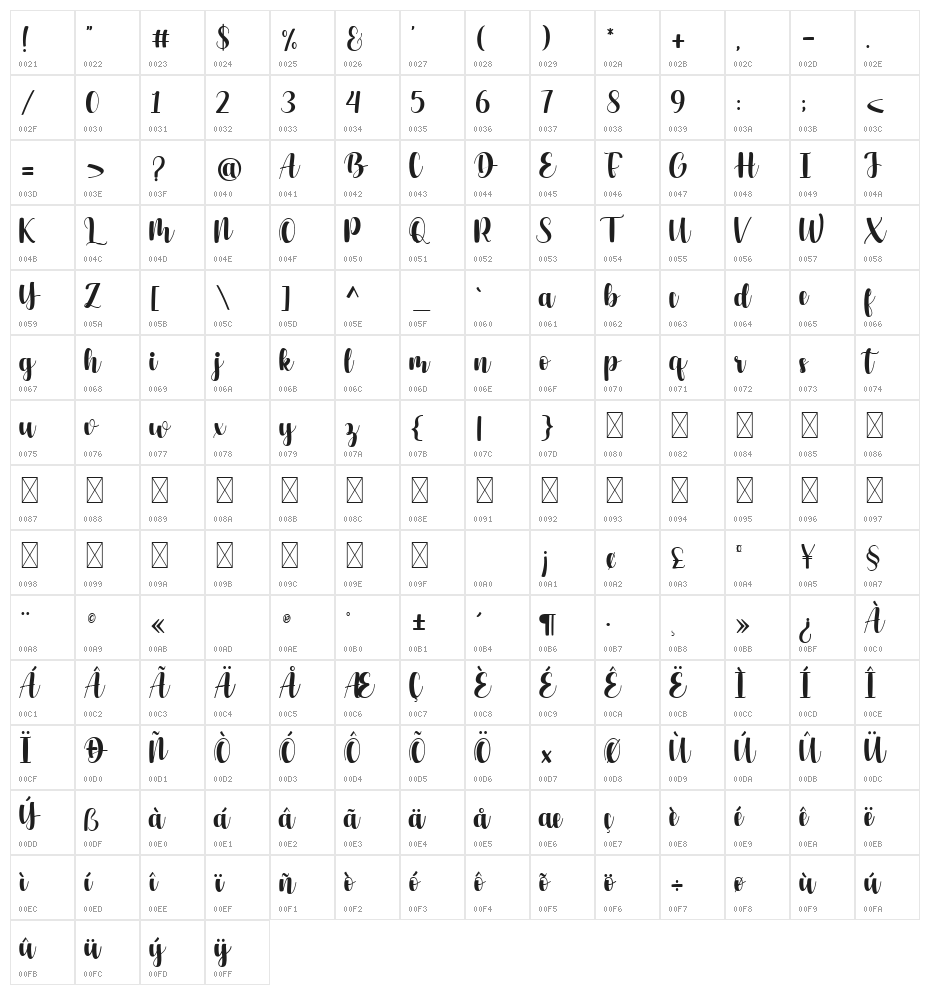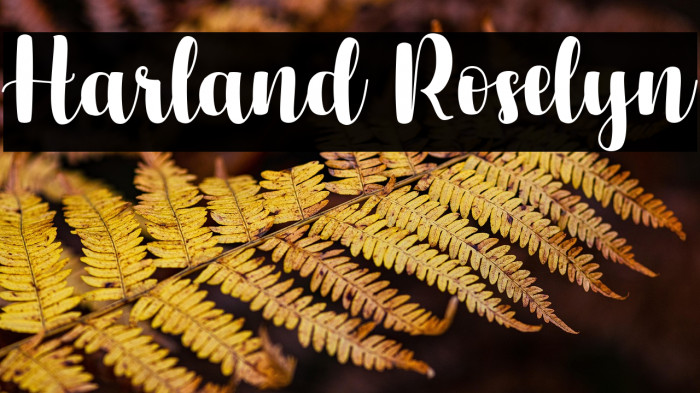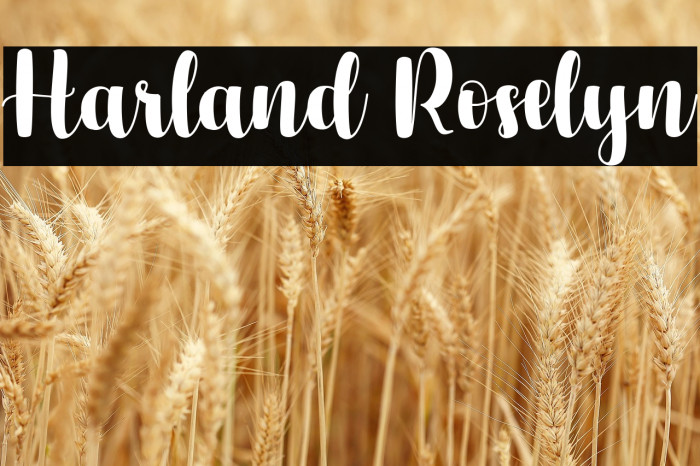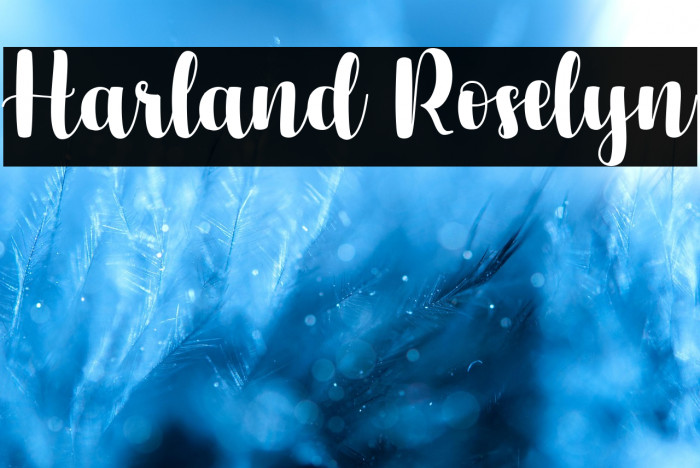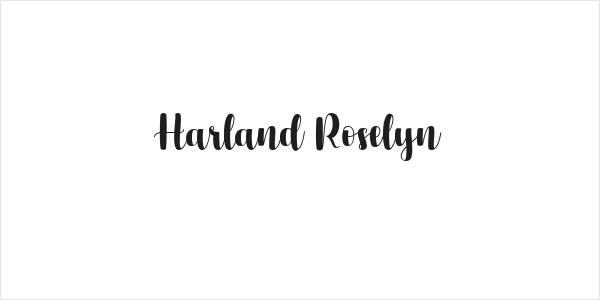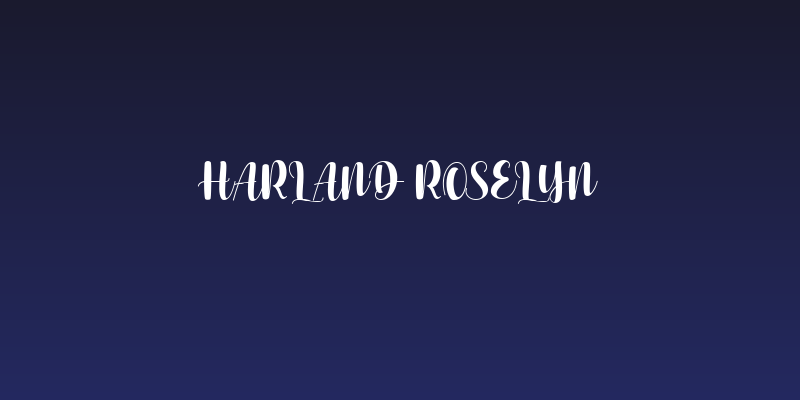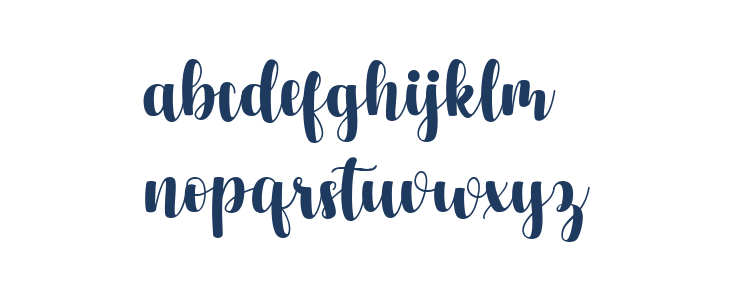
Harland Roselyn Font
Harland Roselyn Description
This font features an elegant and flowing script style, characterized by its smooth, cursive strokes and graceful loops. The uppercase letters are bold and prominent, with a slight slant that adds a dynamic feel. The lowercase letters maintain a consistent flow, with delicate connections between characters that enhance its handwritten appearance. Numbers and special characters are designed to match the overall aesthetic, ensuring a cohesive look across all text. The font's design is both sophisticated and approachable, making it suitable for a variety of creative applications.